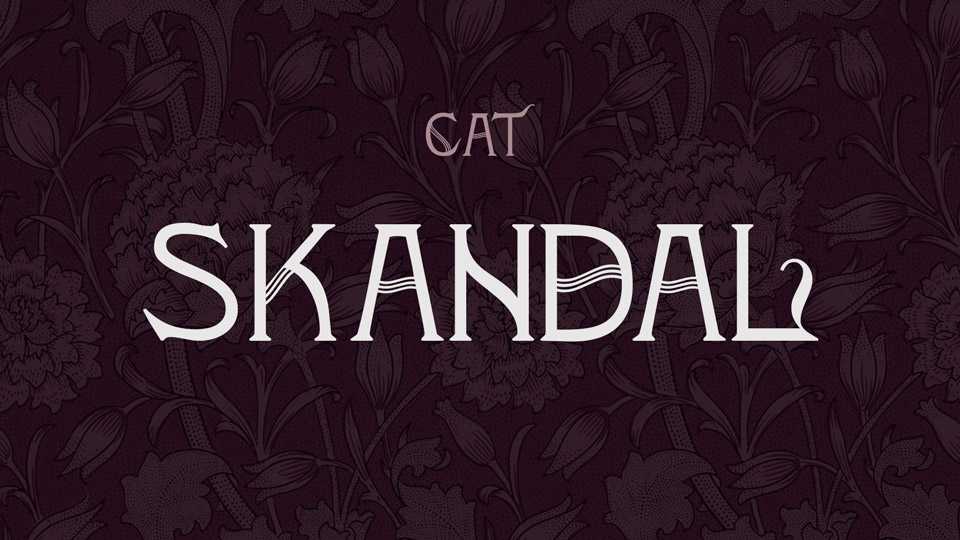
Download Skandal font, a decorative Art Noveau typeface with elegant elements and fancy curls. Skandal font is perfect for vintage designs, posters, wedding decorations and other artworks.